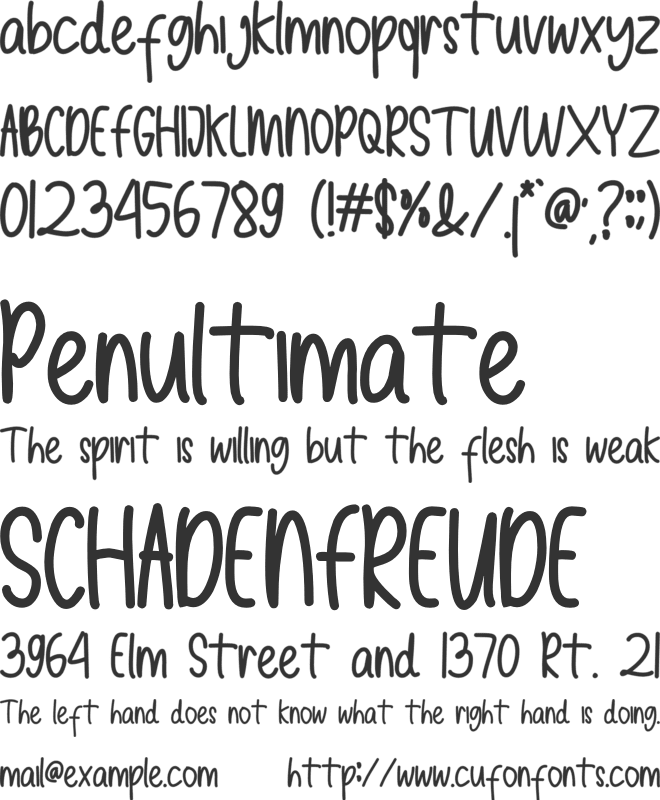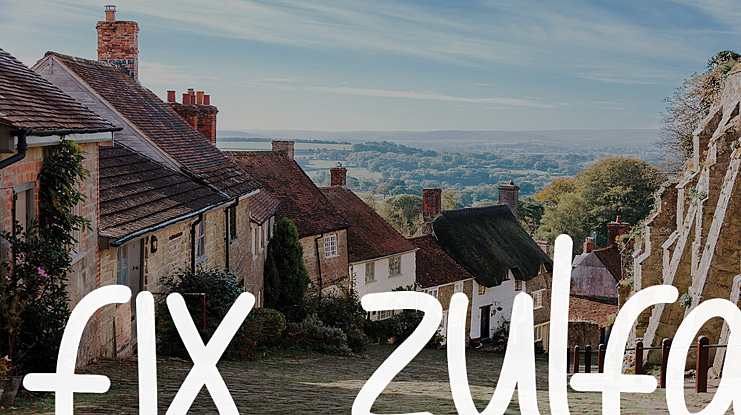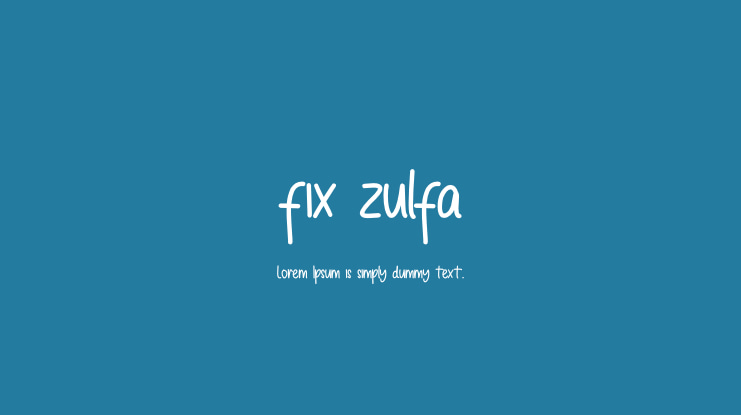
fix zulfa Font
introduce my new product, Zulfa
Zulfa is a handwritten font, this font is perfect for your needs such as: logos, posters, handwriting, mockup, magazines, business cards and others.